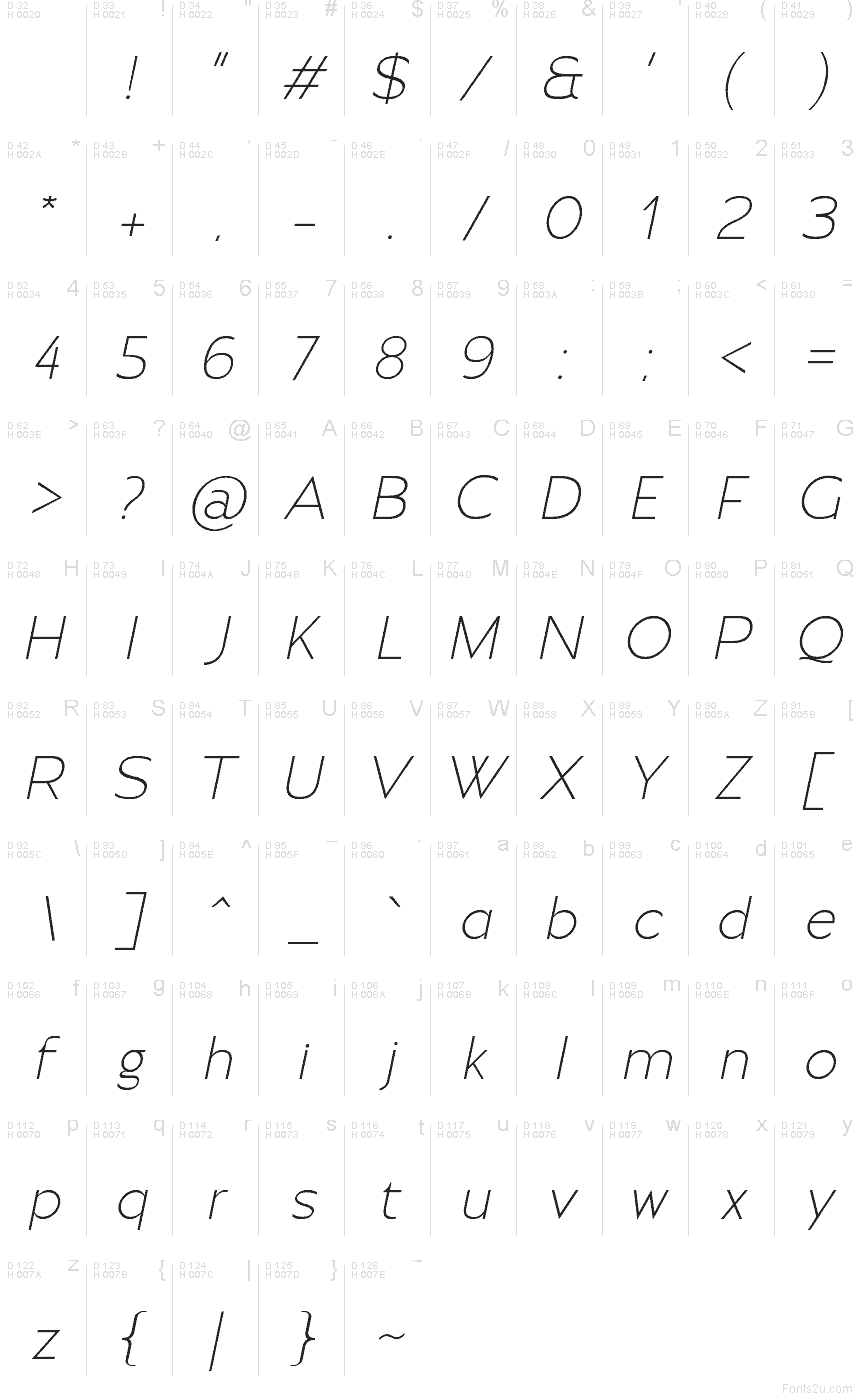
Moirest Light Italic font by Muhamad Fikry Nuralif of Fikryal Studio in the Moirest family is a free light italic sans serif font, drawn with a hairline stroke that feels crisp and effortless. Its clean slant and wide, breathable spacing give words a fast, modern glide-more fashion sketch than marker ink. Use it when you want elegance without ornament.
Using Moirest Light Italic shines on magazine headers, beauty and skincare packaging, minimalist logos, landing-page hero lines, quote graphics, boutique signage, and café menus. Keep sizes a touch larger so the thin lines stay clear, and pair it with a sturdy neutral sans (or a calm grotesk) for body copy to anchor this free font.